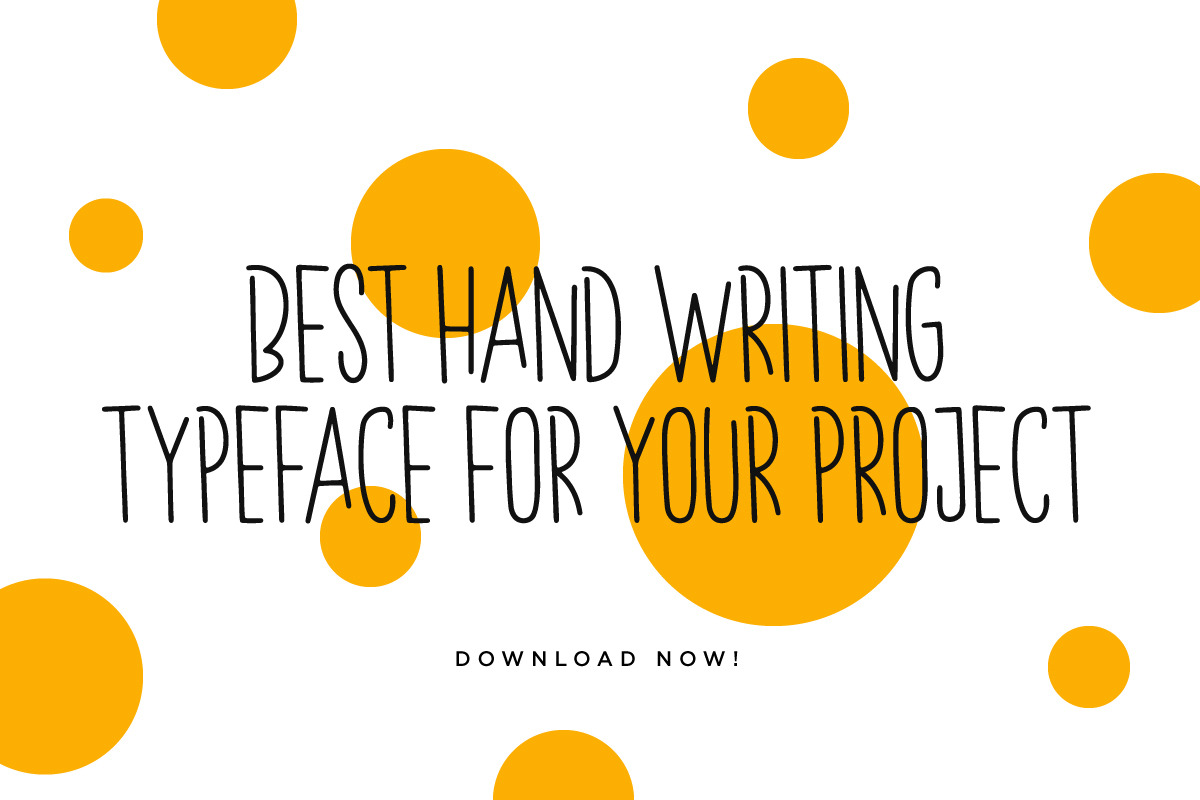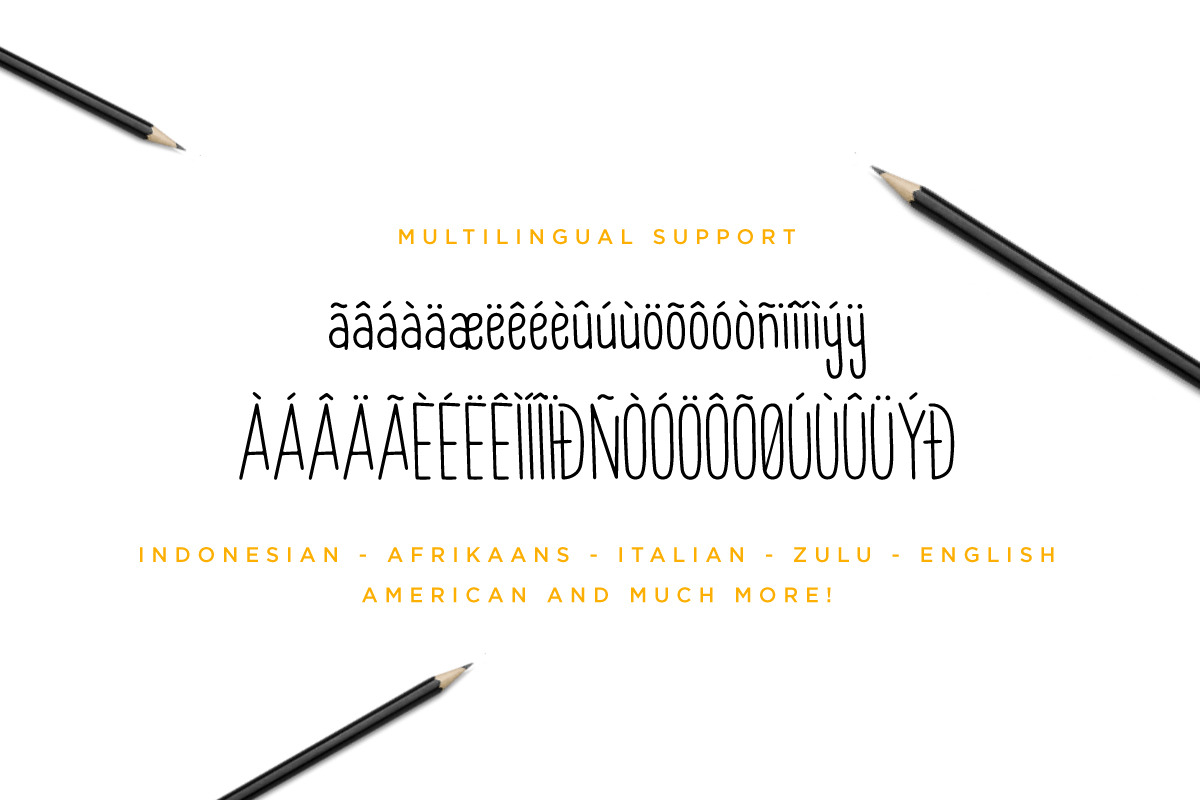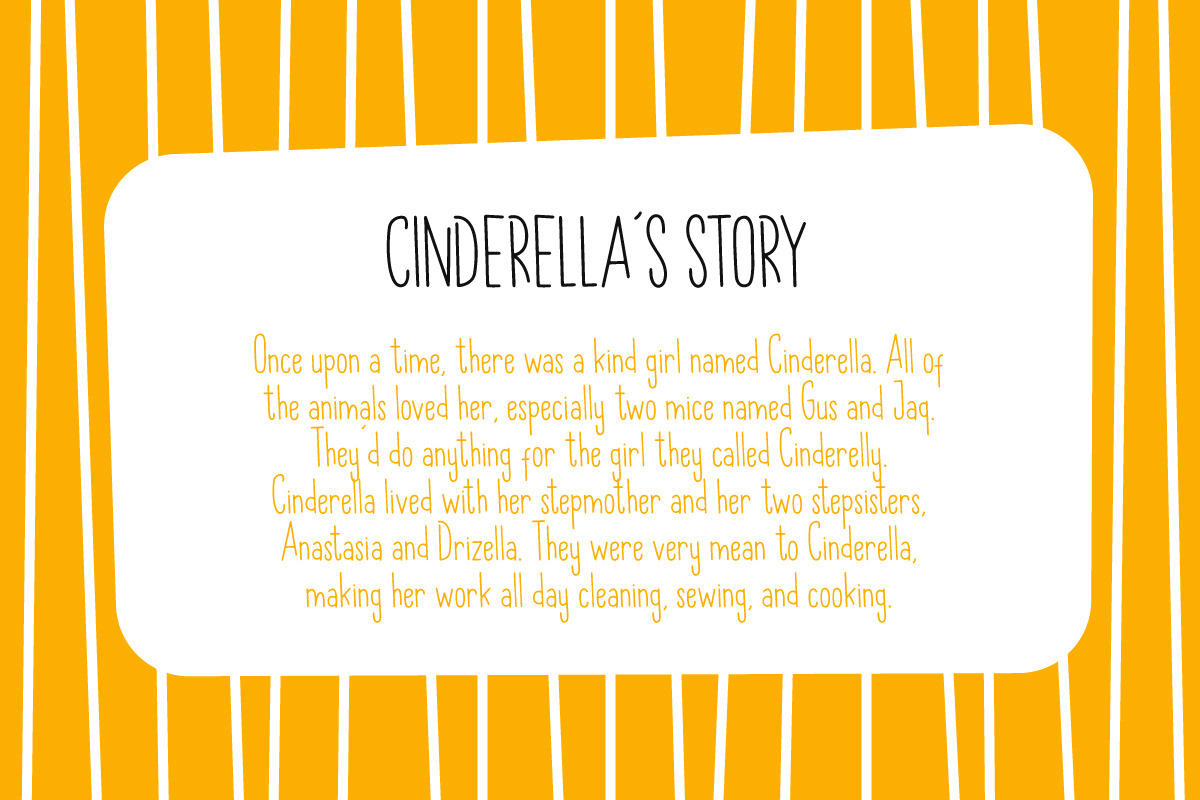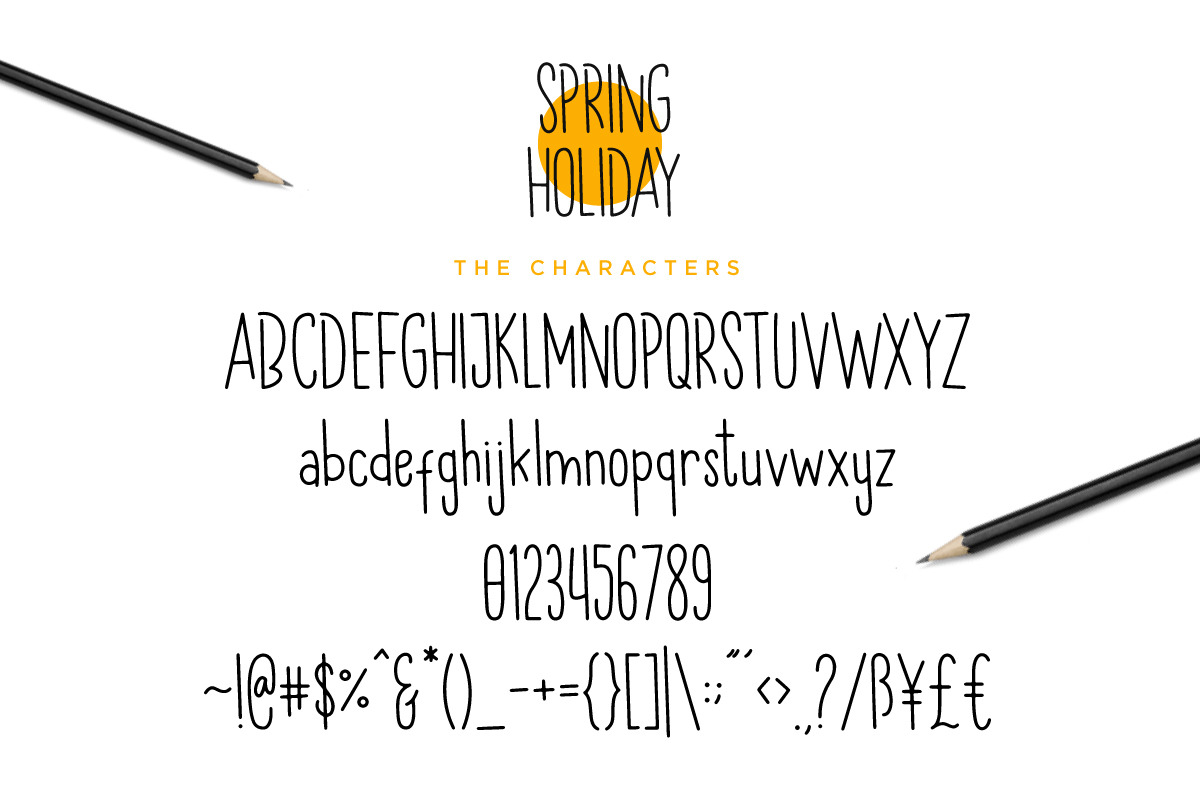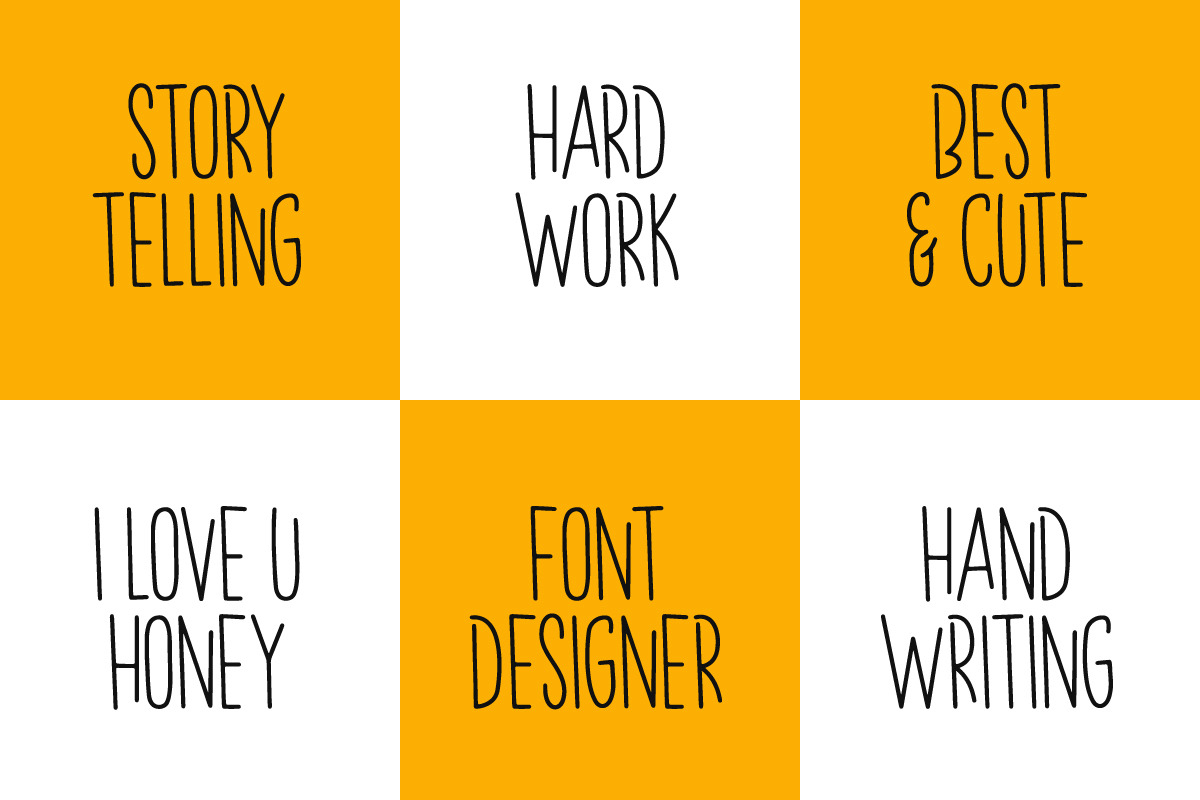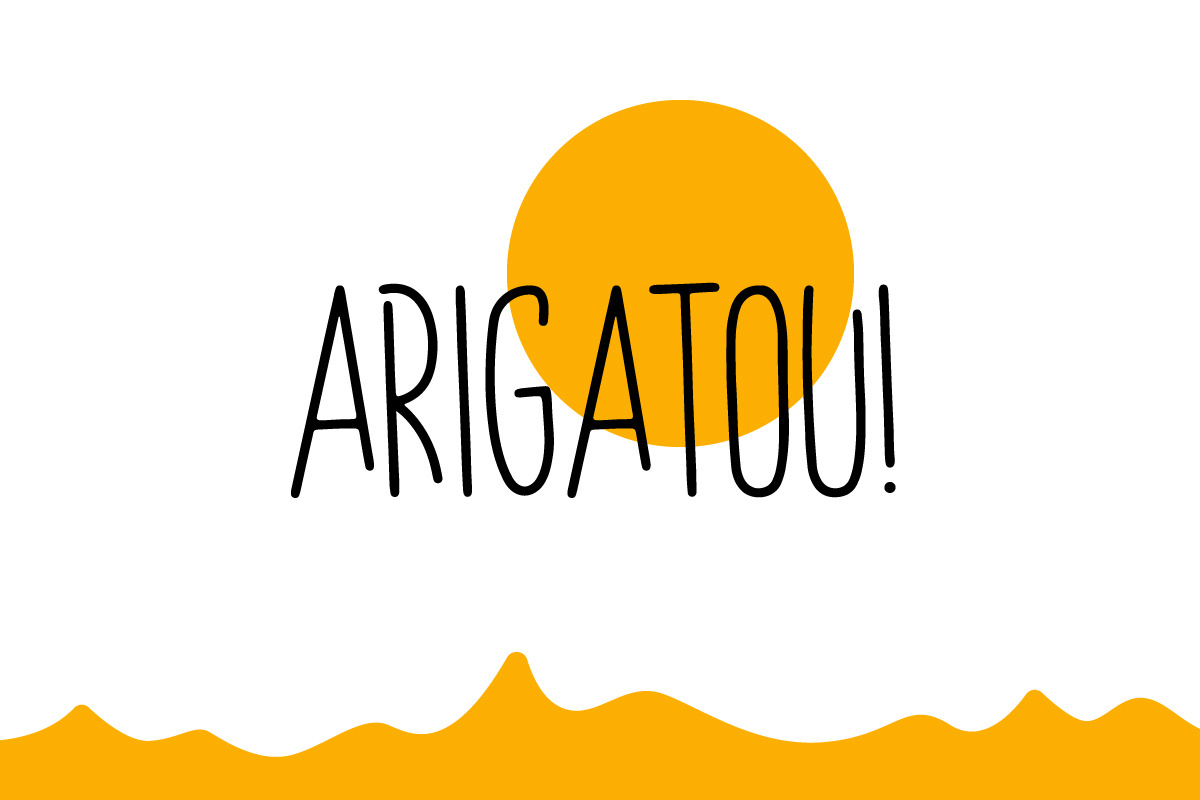
Spring Holiday | 3 Handwitten Font
Spring Holiday handmade font!
This font comes with 3 version :
Thanks for checking out this cute hand drawn font. Spring Holiday is a beachy and fun handwritten font that is absolutely perfect for quotes, products, logos, packaging, banners, tees, story or posters with a lot of text and so much more! Fresh and clean, it's beautiful when used for cosmetic and feminine contexts, but is also masculine enough to be used for strong logos and branding.
- Spring Holiday Regular
- Spring Holiday Italic
- Spring Holiday Bold